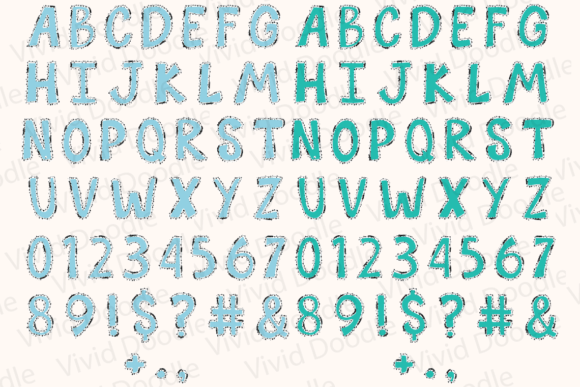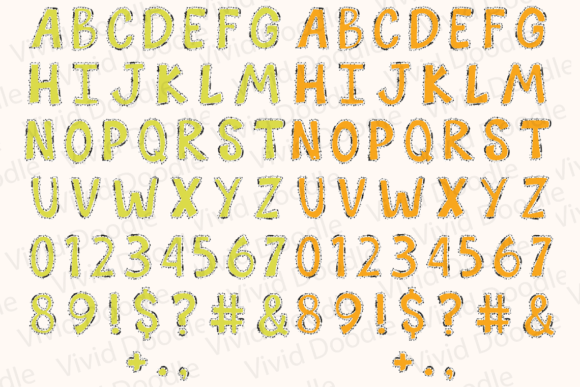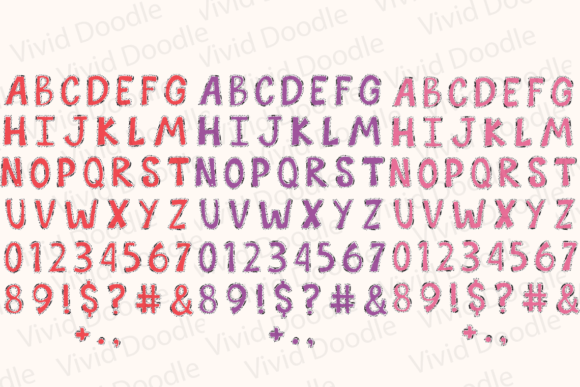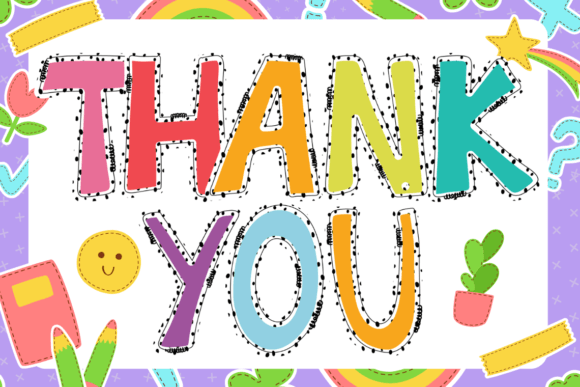
Introduction to Bright Rainbow School Doodle Font
Bright Rainbow School Doodle Font is a lively and colorful handwritten typeface designed to bring joy and creativity to your projects.
With its bold rainbow hues and playful doodle accents, this font is perfect for brightening up birthday invitations, holiday decorations, school projects, posters, and more Whether youโre working on creative art or graphic design, the vibrant energy of Bright Rainbow School Doodle Font adds a cheerful and festive touch to any project.
Key Features of Bright Rainbow School Doodle Font
Why Choose Bright Rainbow School Doodle Font?